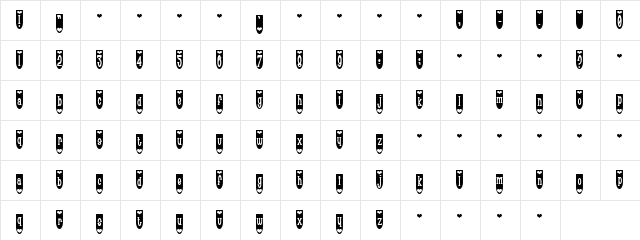
Populuxe Hearton Free Font
Populuxe Hearton
Style: Hearton
Populuxe Family
Populuxe Hearton
Design Context for Populuxe
Populuxe is a composed and adaptable typeface that performs quietly and consistently across a wide range of design contexts.